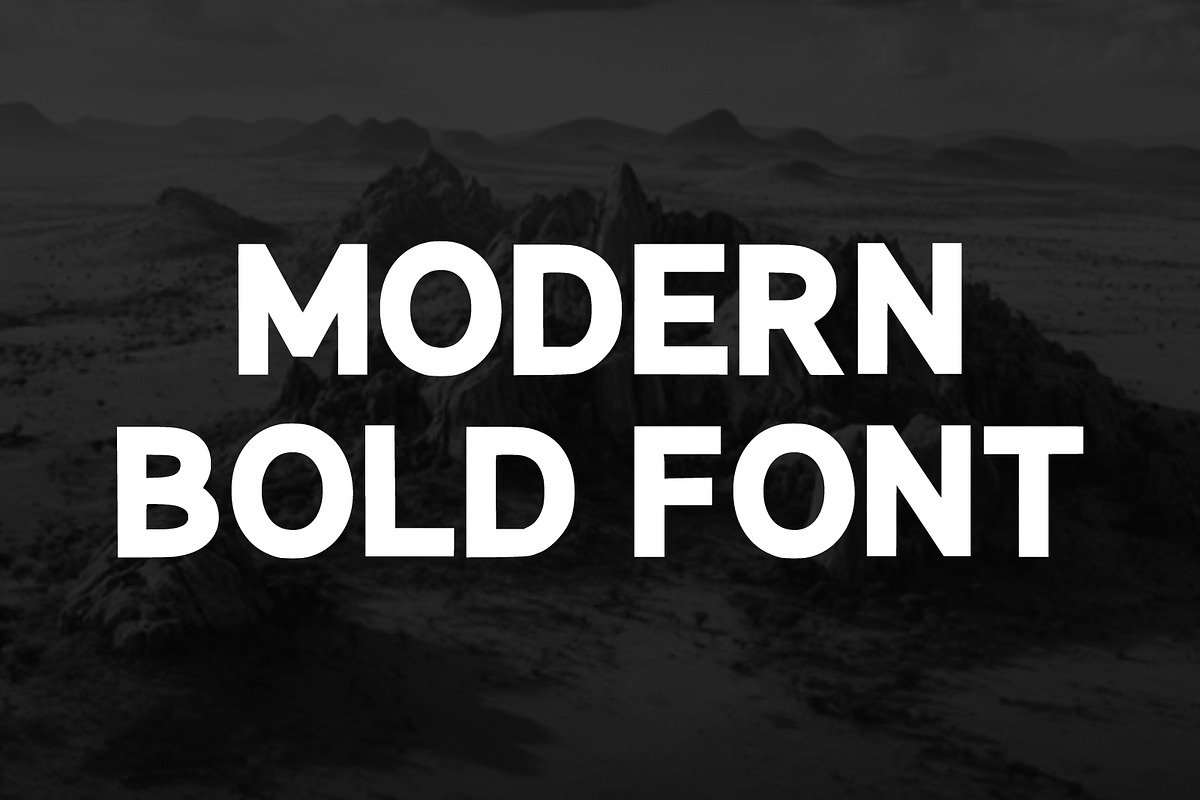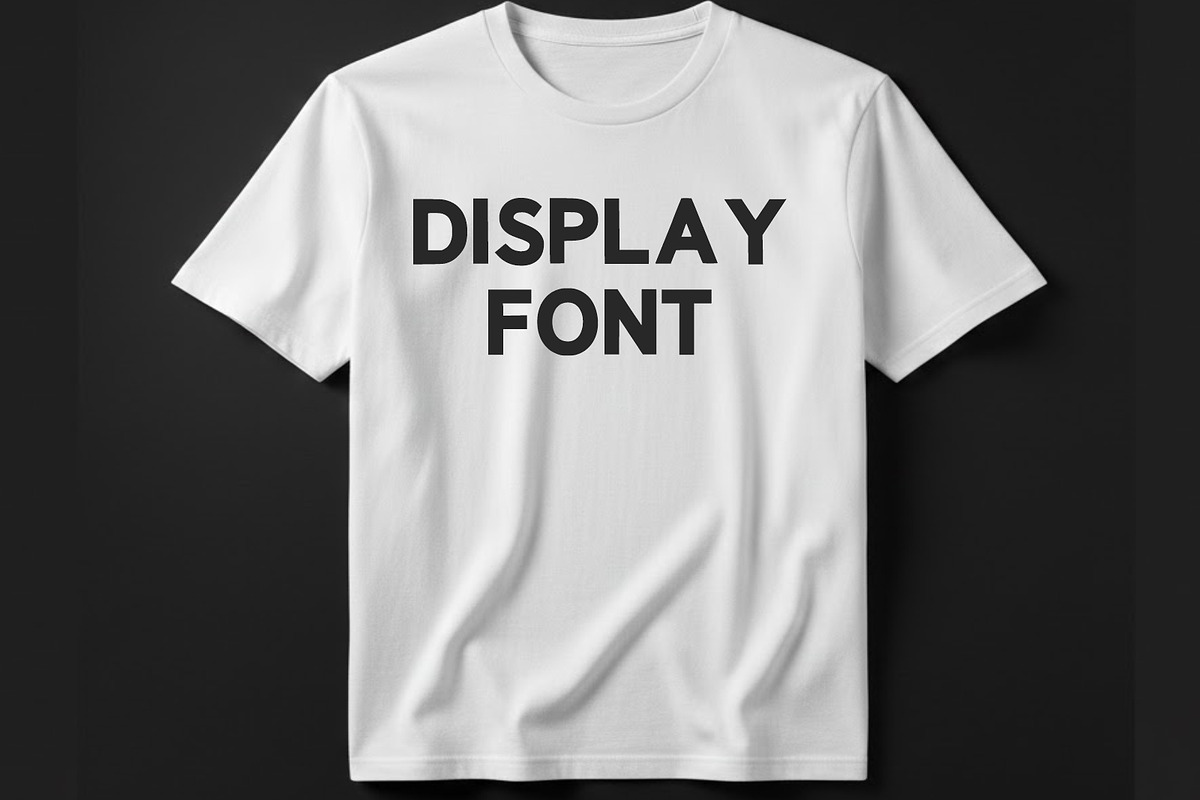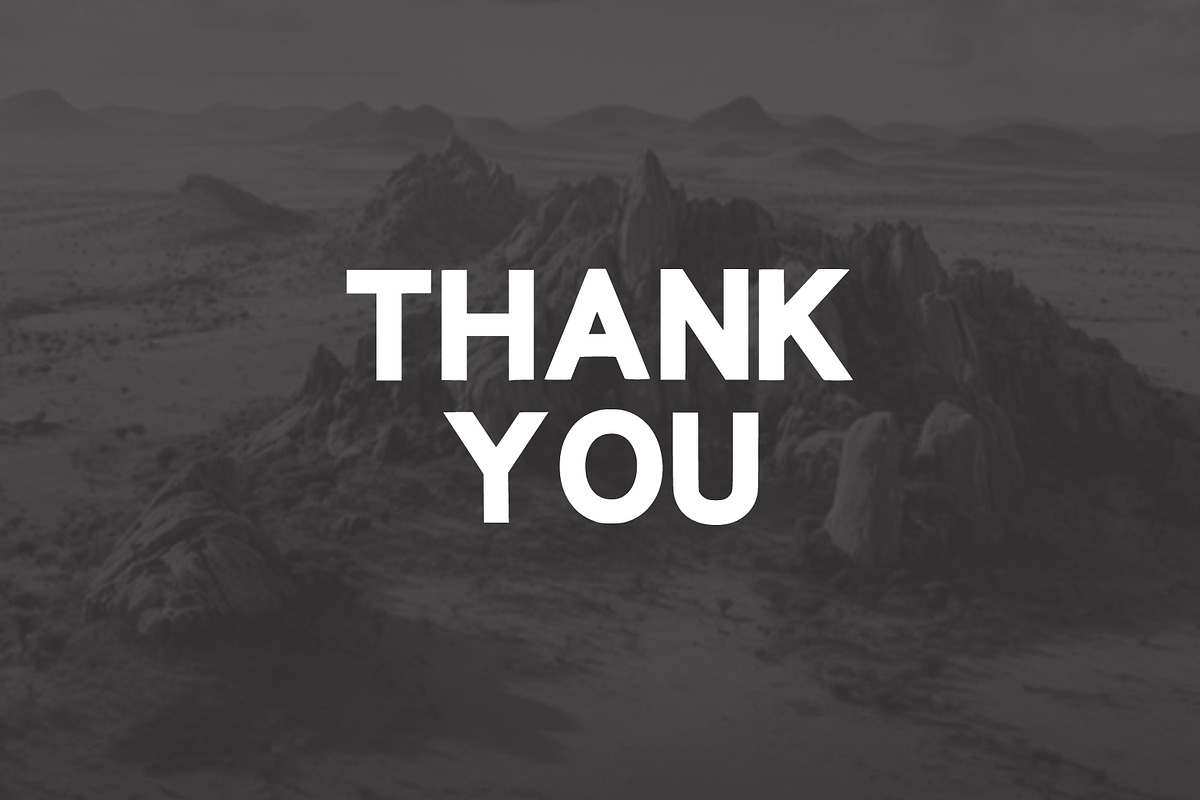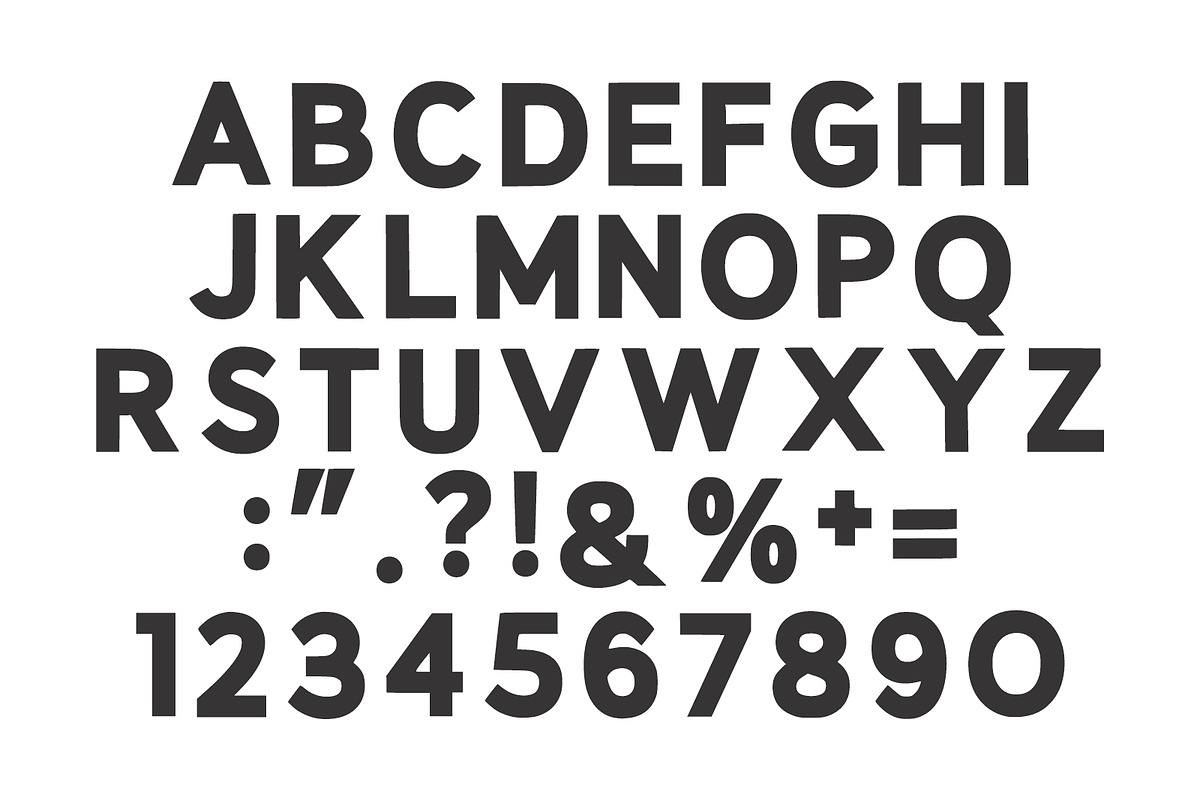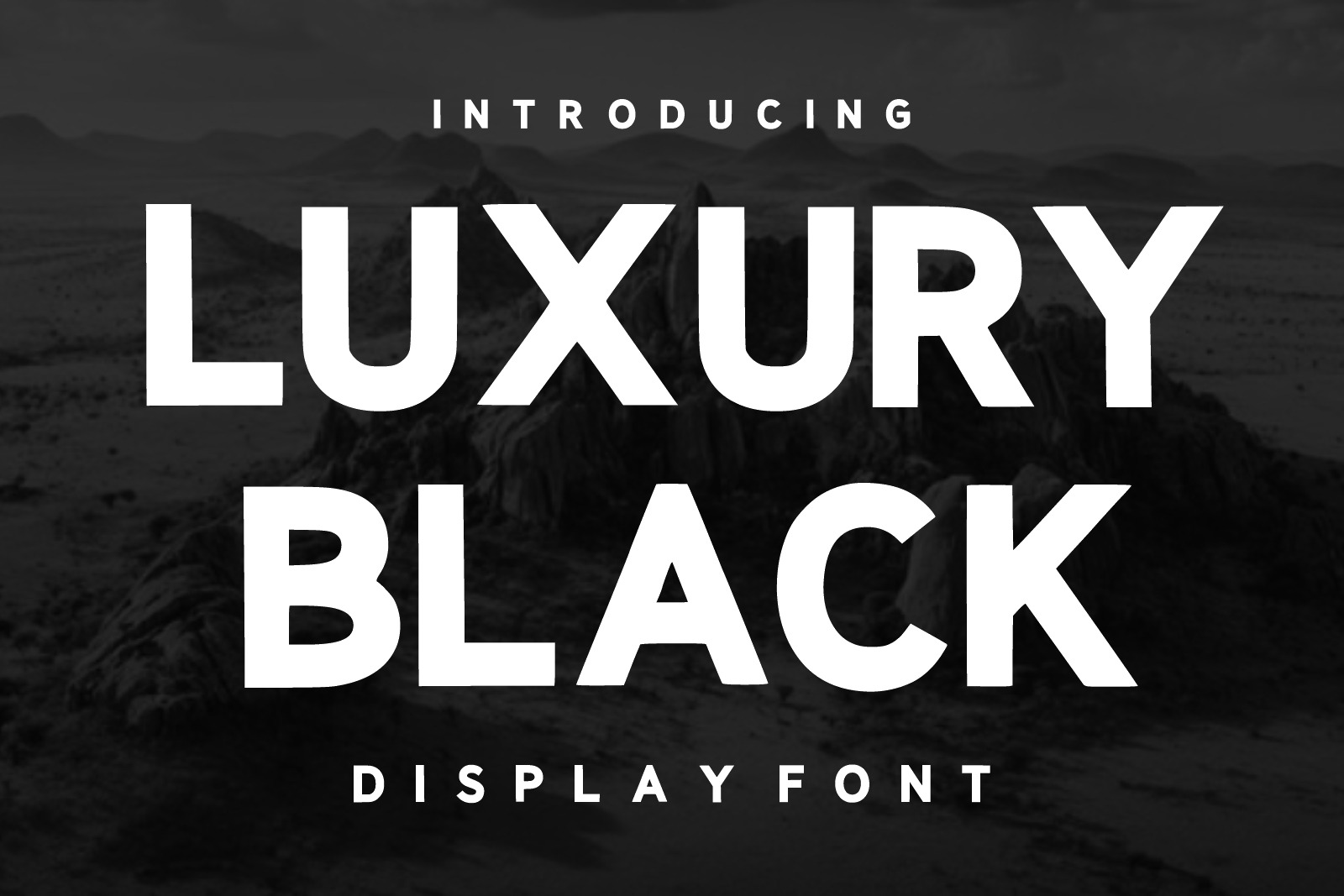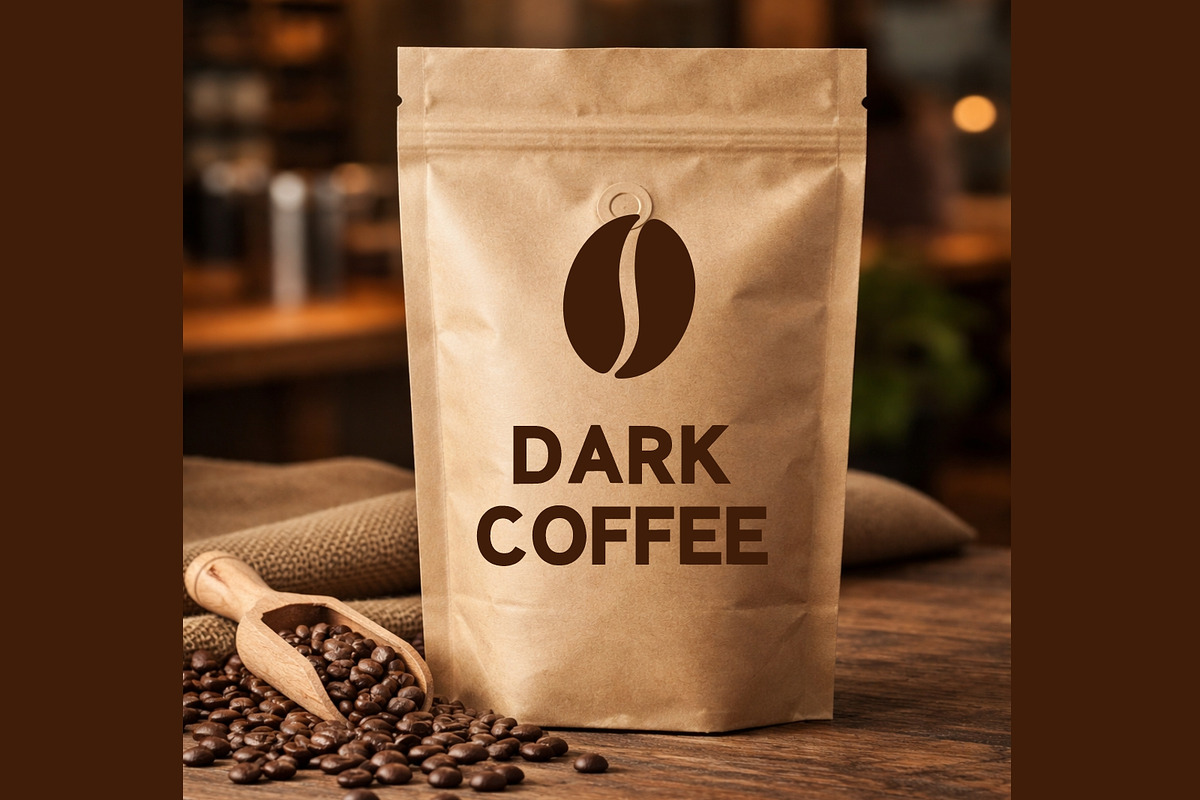
Luxury Black – Modern Display Font
Luxury Black is a bold, sophisticated, and contemporary display font crafted for premium branding and high-impact visual communication. Featuring clean geometric letterforms, strong proportions, and a sleek modern aesthetic, this font is designed to deliver elegance, confidence, and professionalism in every project.
Inspired by luxury branding, modern architecture, fashion editorials, and minimalist design trends, Luxury Black combines simplicity with striking visual presence. Its bold structure creates powerful headlines and memorable brand identities while maintaining excellent readability across both print and digital applications.
Whether you're designing logos, luxury product packaging, corporate branding, magazine covers, fashion campaigns, website headers, social media graphics, advertising materials, or premium marketing assets, Luxury Black provides a refined and contemporary look that instantly elevates your design.
The font’s balanced proportions and modern character make it highly versatile for creative professionals seeking a clean yet impactful typeface. From luxury fashion brands and technology startups to real estate agencies and high-end lifestyle businesses, Luxury Black delivers a strong visual identity that communicates quality and exclusivity.
Its minimalist style allows it to work seamlessly across a variety of design environments, while its bold appearance ensures maximum visibility and attention. Luxury Black is the perfect choice for designers who want to create elegant, modern, and memorable typography with a premium feel.
Add sophistication, power, and modern luxury to your next creative project with Luxury Black, a display font designed to stand out in today's competitive visual landscape.